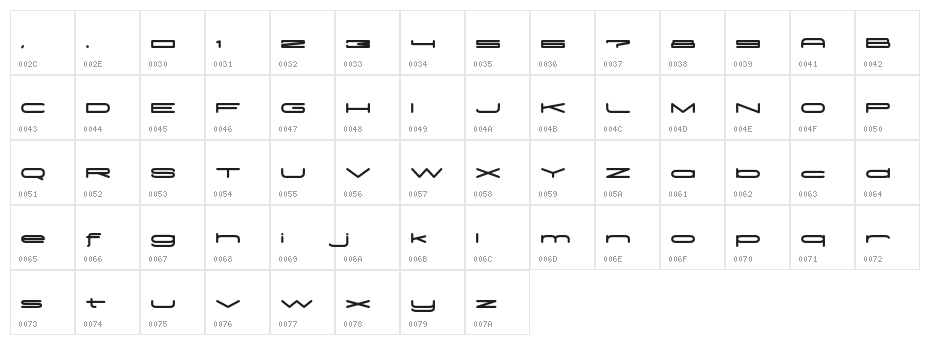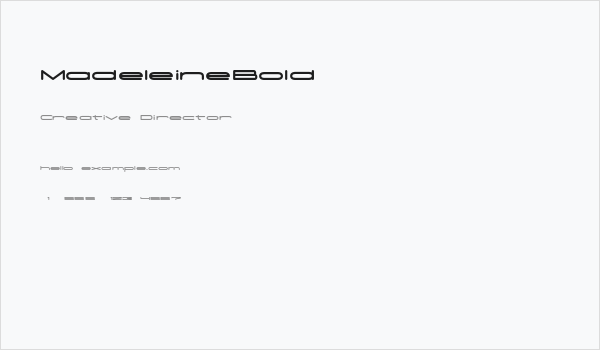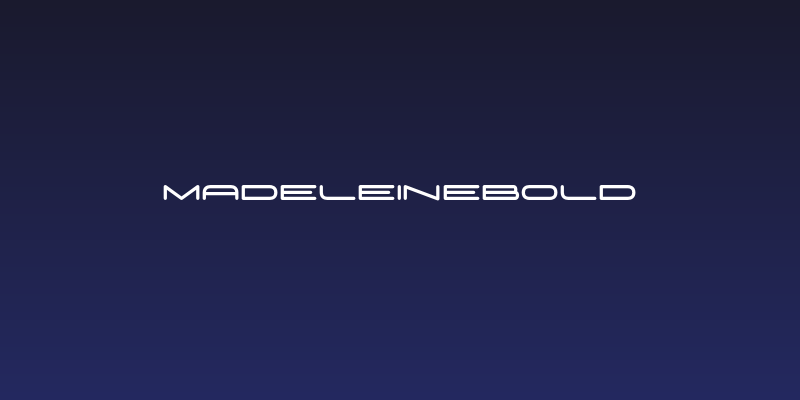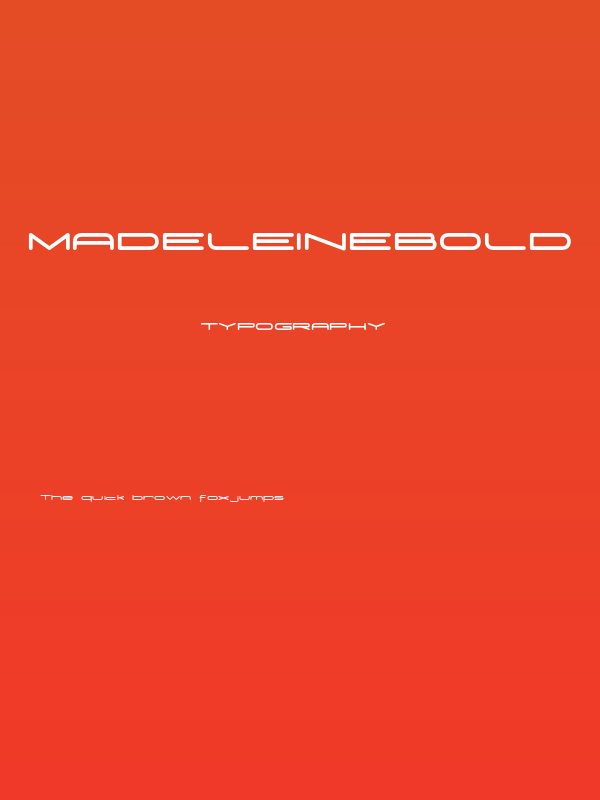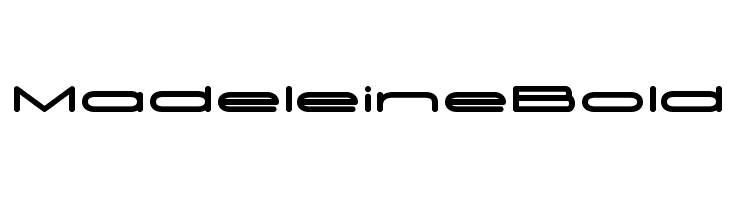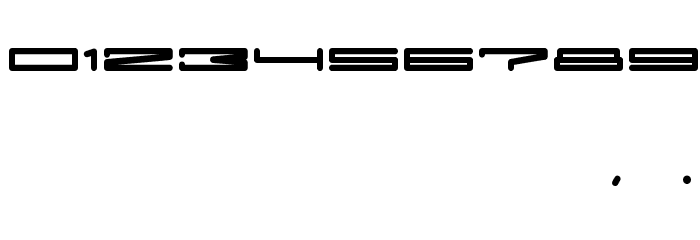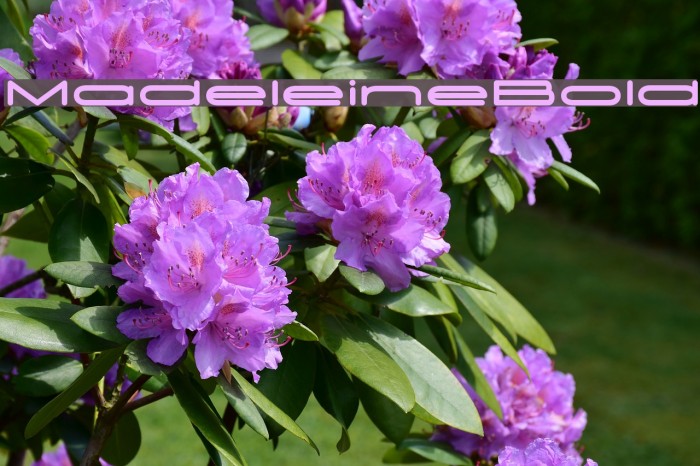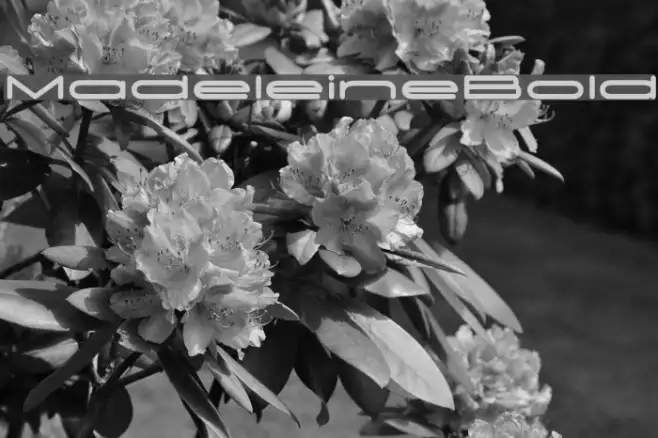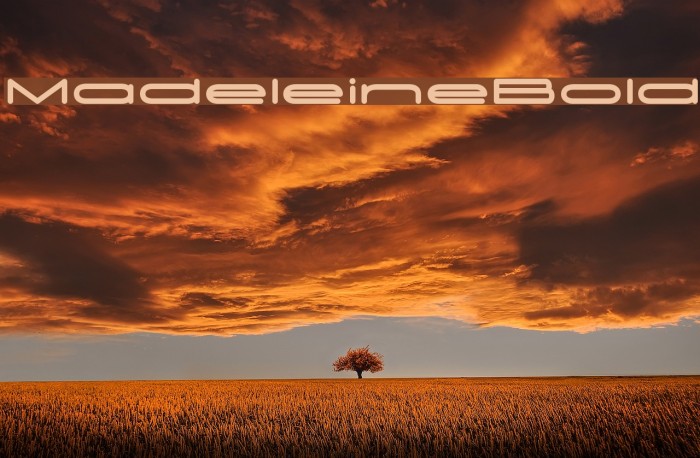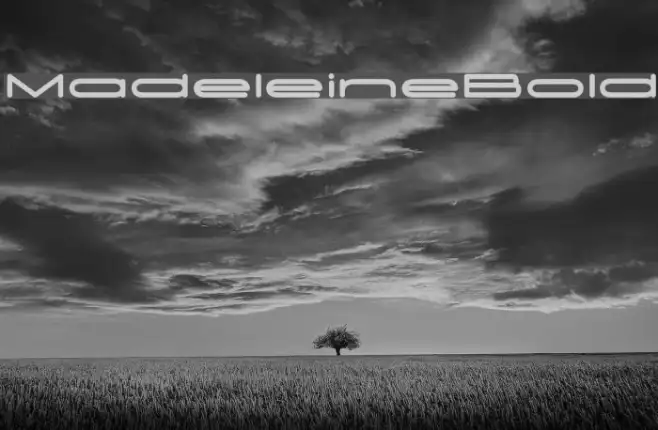
MadeleineBold Font
MadeleineBold Description
This font features a futuristic and sleek design, characterized by its geometric and rounded letterforms. The uppercase and lowercase letters maintain a consistent style, with smooth curves and a uniform thickness that gives it a modern and technological feel. The numerals and special characters are designed to complement the alphabet, ensuring a cohesive look across all elements. The overall appearance is clean and minimalistic, making it suitable for projects that require a contemporary and innovative touch.
| Use Case | Logos, Headlines, Digital interfaces |
| Proposed Projects | Ideal for technology branding, sci-fi themed projects, modern advertising, and digital interfaces. |